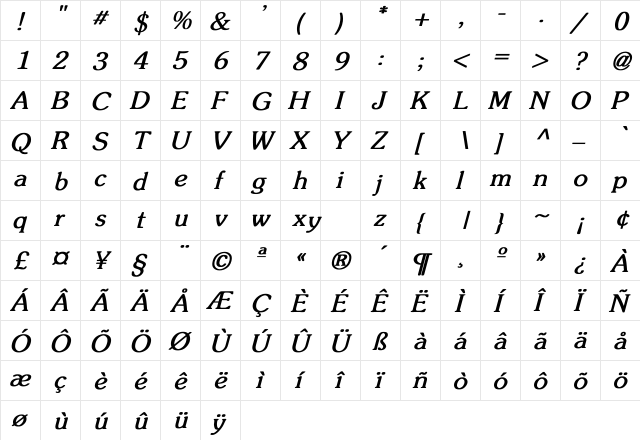
Porter Bold Italic Regular
Design Context for Porter Bold Italic Typeface
Porter Bold Italic offers clean, dependable letterforms without strong stylistic allegiance, making it a practical choice for designers who need flexibility. The slanted form adds forward momentum and visual energy. Its bold stroke weight gives it real presence on the page.
Pro Tip: Use Porter Bold Italic for emphasis, pull quotes, and subheadings where its slanted energy can add rhythm to the layout.